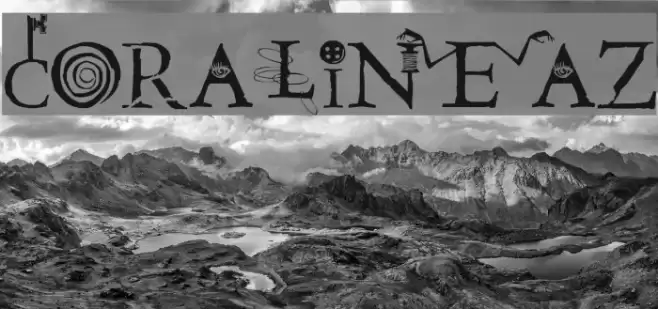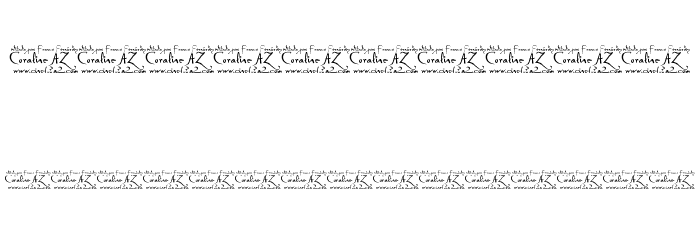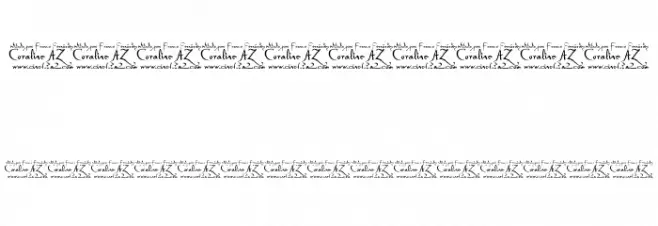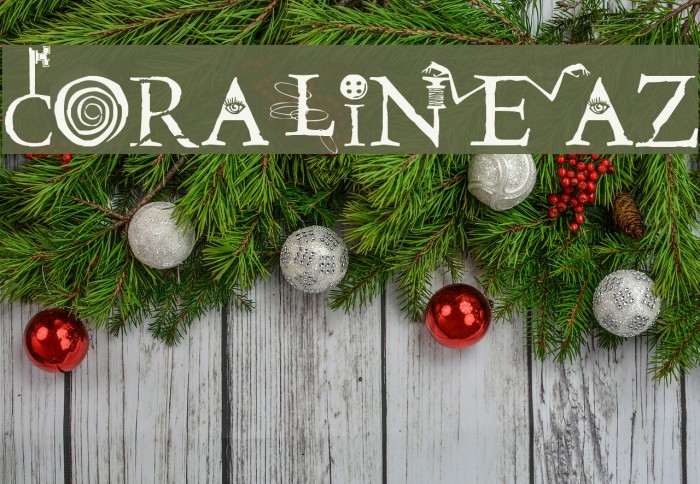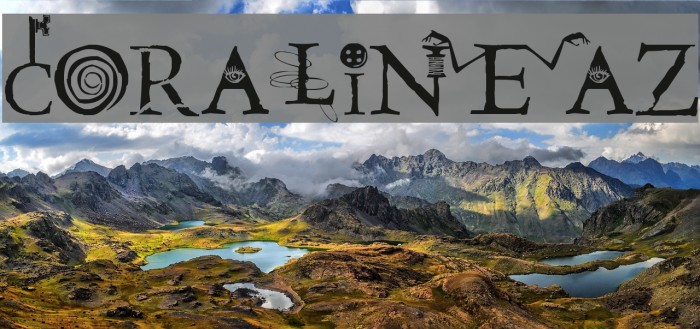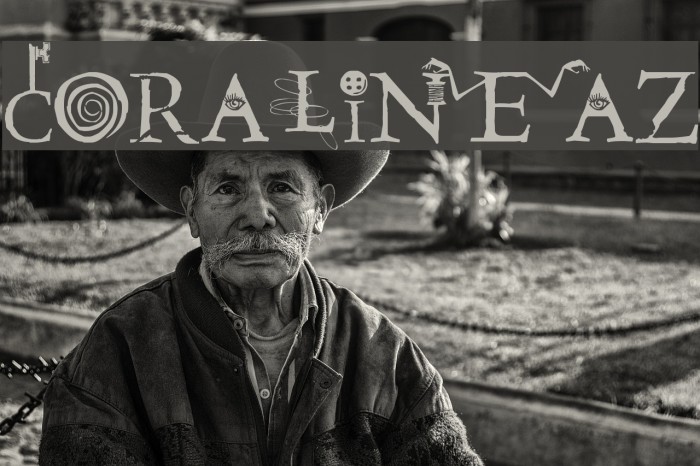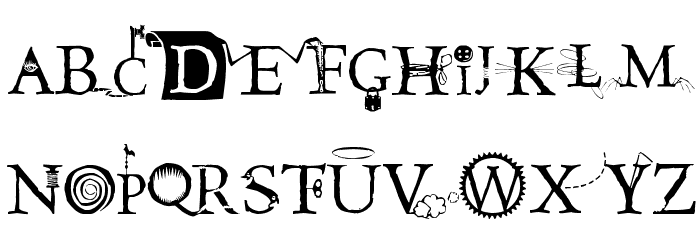
CoralineAZ Font
CoralineAZ Description
This font is a whimsical and decorative typeface with a playful and imaginative design. Each character is uniquely styled with intricate details and embellishments, giving it a fantastical and storybook-like appearance. The uppercase letters feature a variety of creative elements, such as gears, spirals, and other quirky decorations, making each letter a visual delight. The lowercase letters maintain the same whimsical style, ensuring consistency throughout the typeface. The numbers and special characters are equally adorned with imaginative details, adding to the overall charm and uniqueness of the font. This typeface is perfect for projects that require a touch of fantasy and creativity, such as children's books, fantasy-themed events, or artistic designs.
A whimsical and decorative font with imaginative, storybook-like characters from Uncategorized fonts.
- Proposed Projects: Ideal for children's books, fantasy-themed events, artistic designs, and creative branding.
- Use Case: Headlines, Artistic designs, Creative branding